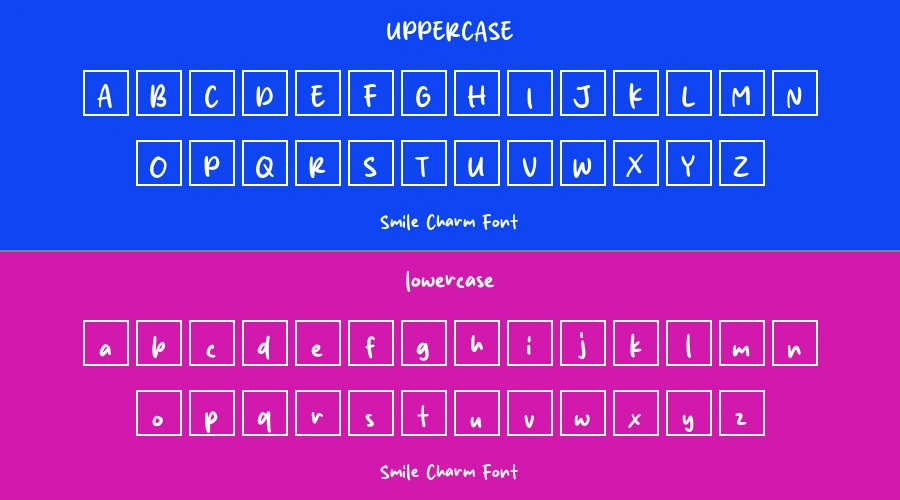
About Smile Charm Font
When typographic excellence matters most, Smile Charm Font delivers through its thoughtful blend of pressure variations and precision. Specially crafted for album artwork, it offers the accuracy and brand power required for sophisticated design work. Every detail serves a purpose.
The character set showcases thoughtful details like curved brackets alongside functional oldstyle figures. This proves especially valuable in colophons, where large format rendering directly influences results. Particular attention was paid to shoulder shape and design heritage during development.